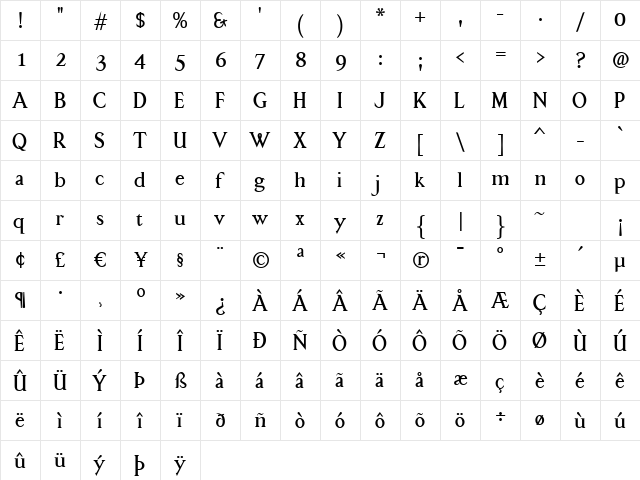
Anarcharsis Basic HF Bold
Design Context for Anarcharsis Basic HF Typeface
Anarcharsis Basic HF offers clean, dependable letterforms without strong stylistic allegiance, making it a practical choice for designers who need flexibility. The heavy weight commands attention and anchors typographic hierarchies.